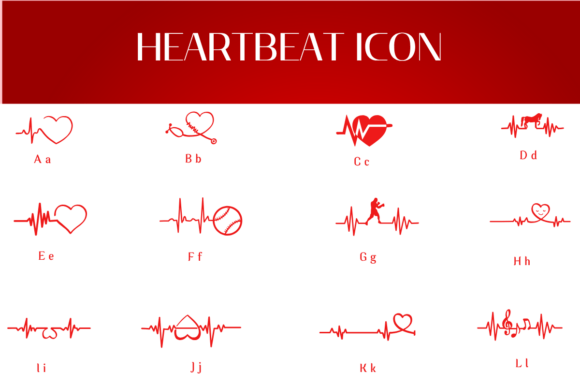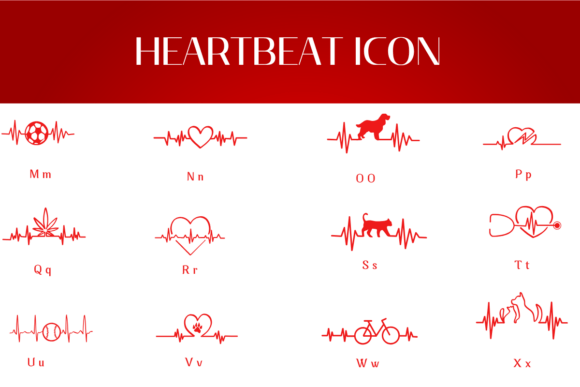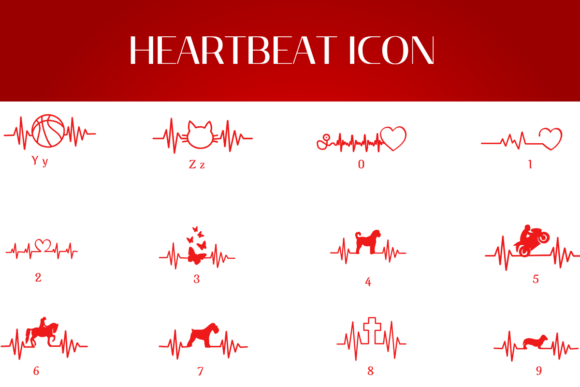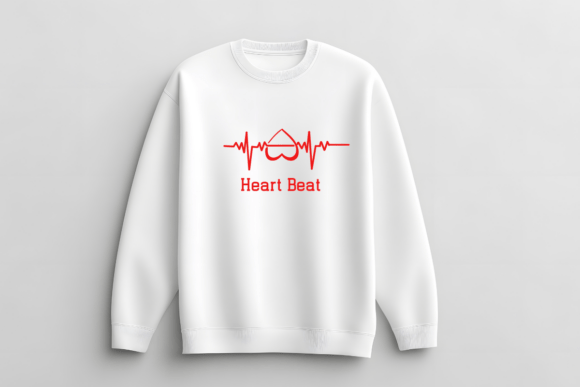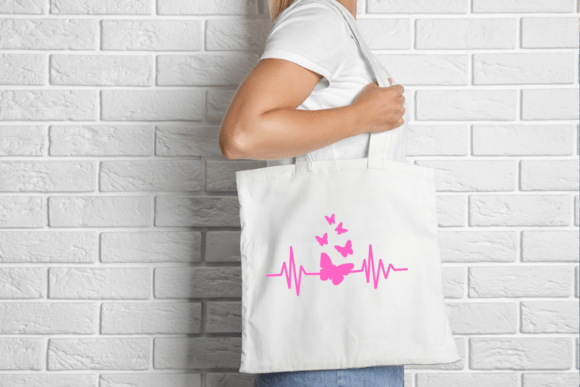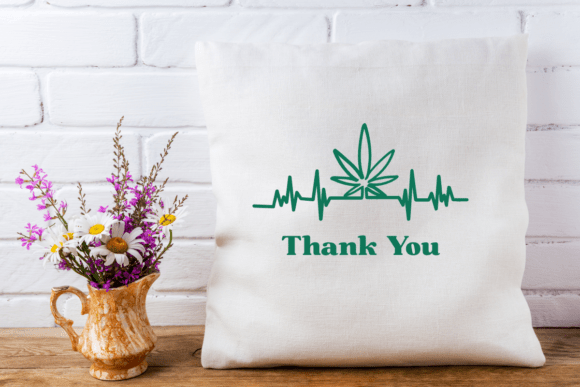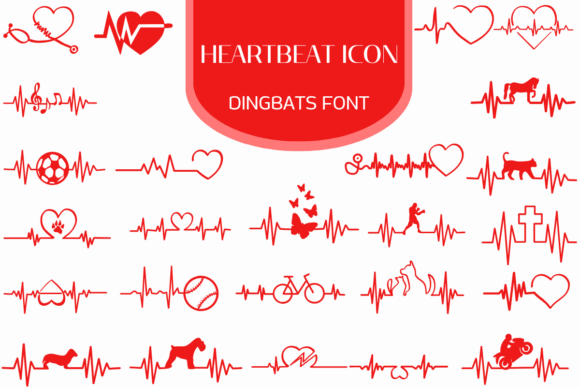
Heartbeat Icon Font: Add a Touch of Whimsy to Your Designs
Are you tired of using the same old fonts in your designs? Do you want to add a touch of whimsy and fun to your creative projects? Look no further than the Heartbeat Icon Font! This adorable dingbats font is perfect for designers and crafters who want to add a little extra something to their work.
What is Heartbeat Icon Font?
The Heartbeat Icon Font is a unique and playful font that features a range of cute and quirky icons, including hearts, stars, and other fun symbols. This font is perfect for anyone who wants to add a touch of personality to their designs, whether it’s for a craft project, a blog post, or a social media graphic.
Why Use Heartbeat Icon Font?
There are many reasons why you might want to use the Heartbeat Icon Font in your designs. Here are just a few:
- Add a touch of whimsy: The Heartbeat Icon Font is perfect for adding a little bit of fun and personality to your designs. Whether you’re working on a craft project or a professional design, this font is sure to bring a smile to your face.
- Stand out from the crowd: With so many fonts out there, it can be hard to make your designs stand out. The Heartbeat Icon Font is a unique and eye-catching choice that is sure to grab attention.
- Perfect for crafters and designers: Whether you’re a professional designer or a crafter who loves to make things, the Heartbeat Icon Font is a great choice. This font is perfect for a wide range of projects, from handmade cards to professional marketing materials.
How to Use Heartbeat Icon Font
Using the Heartbeat Icon Font is easy! Here are a few tips to get you started:
- Experiment with different icons: The Heartbeat Icon Font includes a wide range of icons, so don’t be afraid to experiment and try out different ones. You can use the icons on their own or combine them with text for a unique look.
- Use it in your designs: The Heartbeat Icon Font is perfect for a wide range of designs, from social media graphics to handmade cards. Try it out in your next project and see how it can add a touch of whimsy and fun.
The Heartbeat Icon Font offers a range of benefits for designers and crafters. Here are just a few:
- Save time: With the Heartbeat Icon Font, you can add a touch of whimsy to your designs without spending hours searching for the perfect icons. This font includes a wide range of icons, so you can find the perfect one for your project in no time.
- Increase creativity: The Heartbeat Icon Font is a great way to add some creativity to your designs. With a wide range of icons to choose from, you can experiment with different looks and find the perfect one for your project.
Examples of Heartbeat Icon Font in Action
Here are a few examples of how you can use the Heartbeat Icon Font in your designs:
- Handmade cards: Add a touch of whimsy to your handmade cards with the Heartbeat Icon Font. You can use the icons on their own or combine them with text for a unique look.
- Social media graphics: The Heartbeat Icon Font is perfect for social media graphics, such as Facebook posts and Instagram stories. You can use the icons to add a touch of personality to your graphics and make them stand out.
- Craft projects: The Heartbeat Icon Font is perfect for a wide range of craft projects, from scrapbooking to sewing. You can use the icons to add a touch of whimsy to your projects and make them more interesting.
The Heartbeat Icon Font is a fun and cute dingbats font that is perfect for designers and crafters who want to add a touch of whimsy to their designs. With a wide range of icons to choose from, you can experiment with different looks and find the perfect one for your project. Whether you’re working on a handmade card or a professional design, the Heartbeat Icon Font is a great choice. So why not give it a try and see how it can add a touch of personality to your designs?